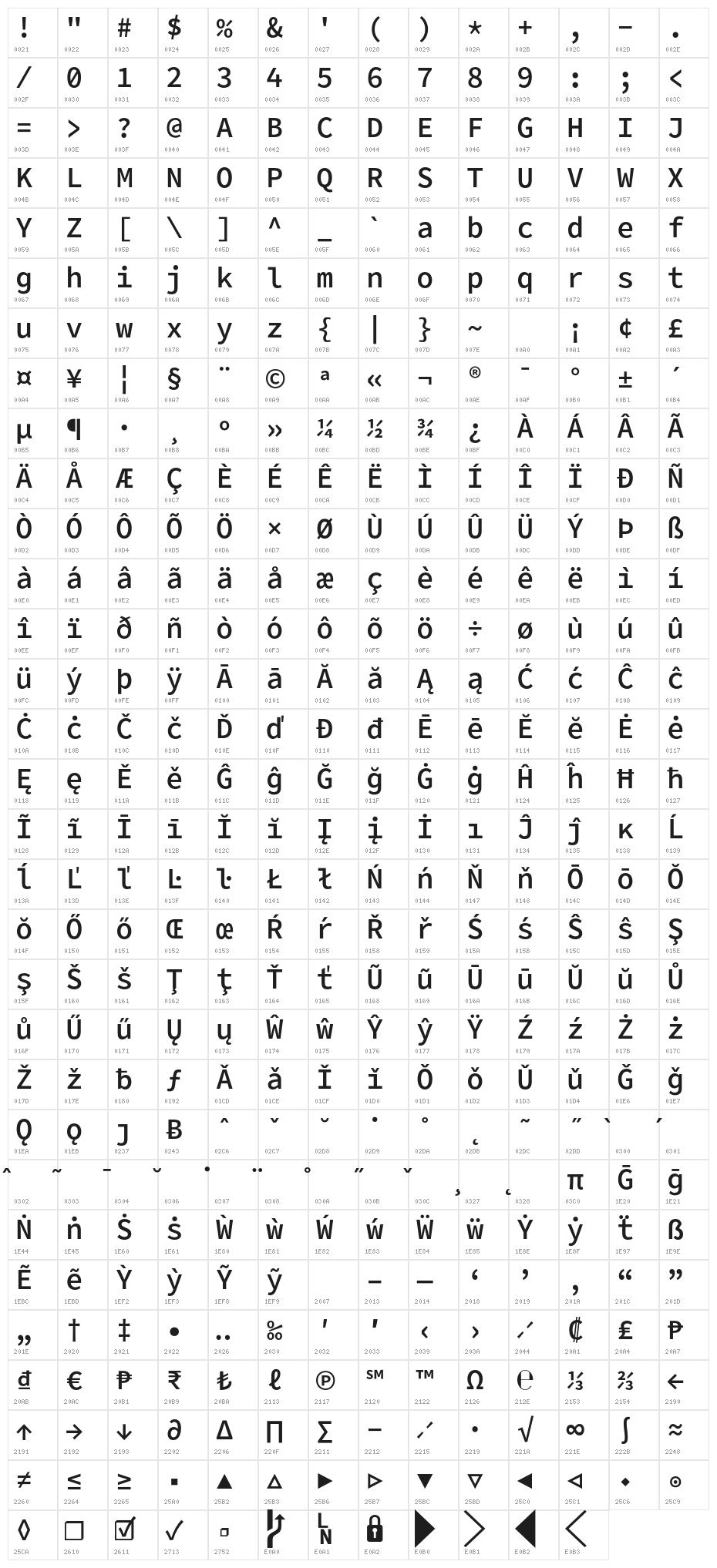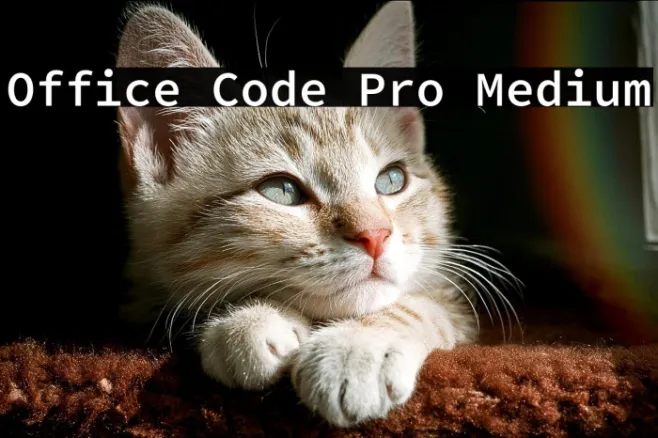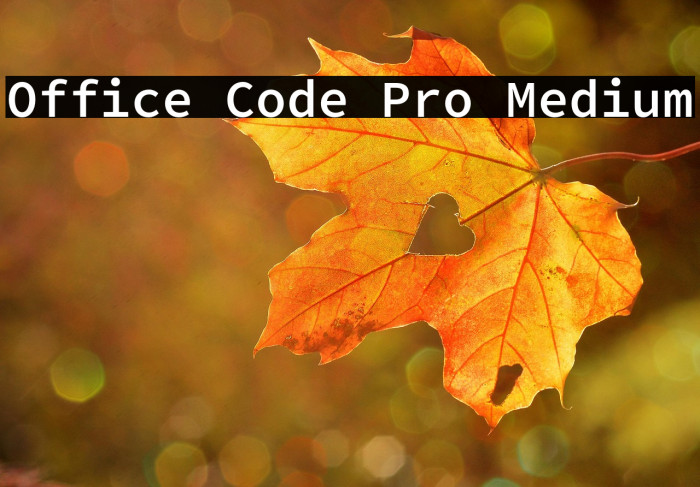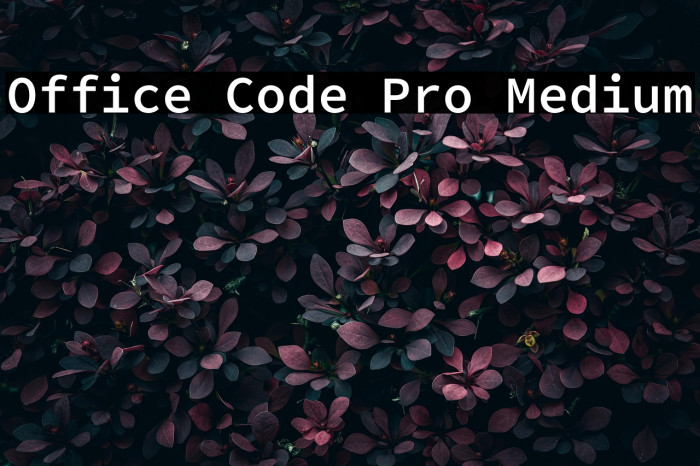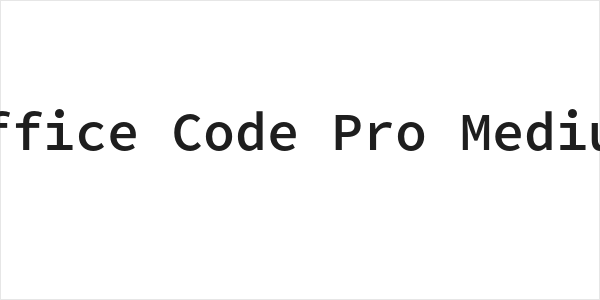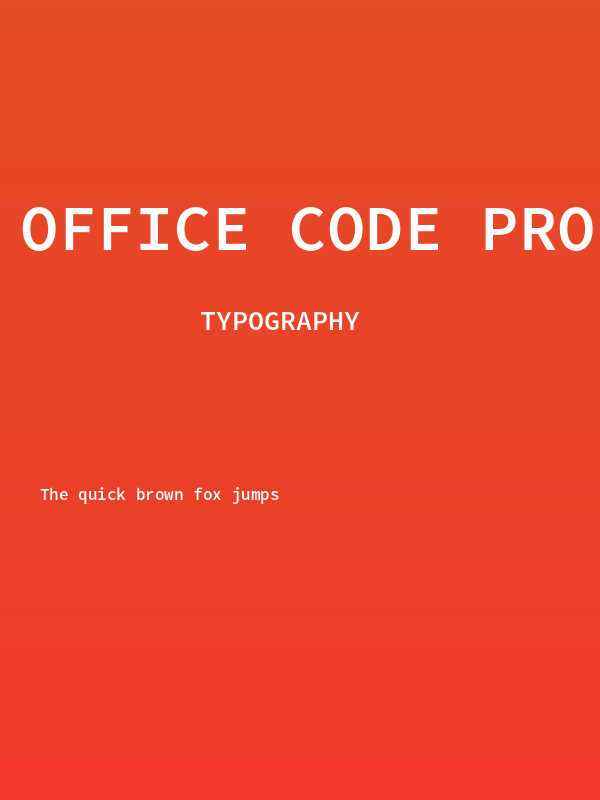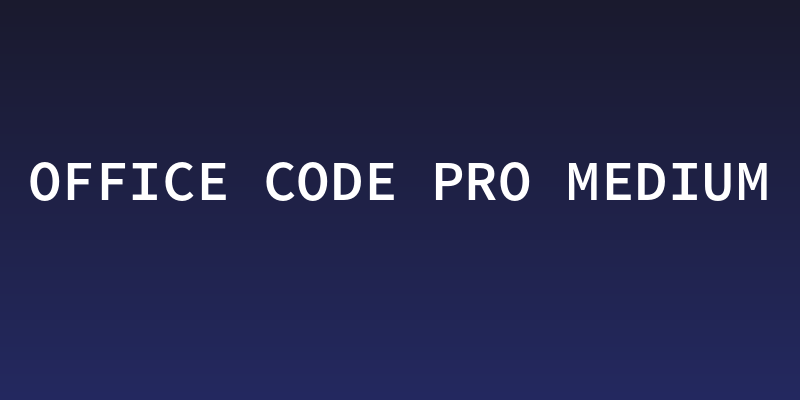
Office Code Pro Medium Font
Office Code Pro Medium Description
This typeface is a clean and modern monospaced font, characterized by its uniform spacing and clear legibility. The characters are well-proportioned, with a consistent stroke width that offers a balanced appearance. The uppercase letters are bold and assertive, while the lowercase letters maintain a harmonious flow. Numerals are distinct and easy to read, making them suitable for coding and technical documents. The special characters are well-defined, ensuring clarity in various contexts. Overall, this font combines functionality with a sleek design, making it ideal for professional and technical applications.
| Use Case | Coding, Technical documents, Professional use |
| Proposed Projects | Ideal for coding, technical documentation, and professional presentations. |